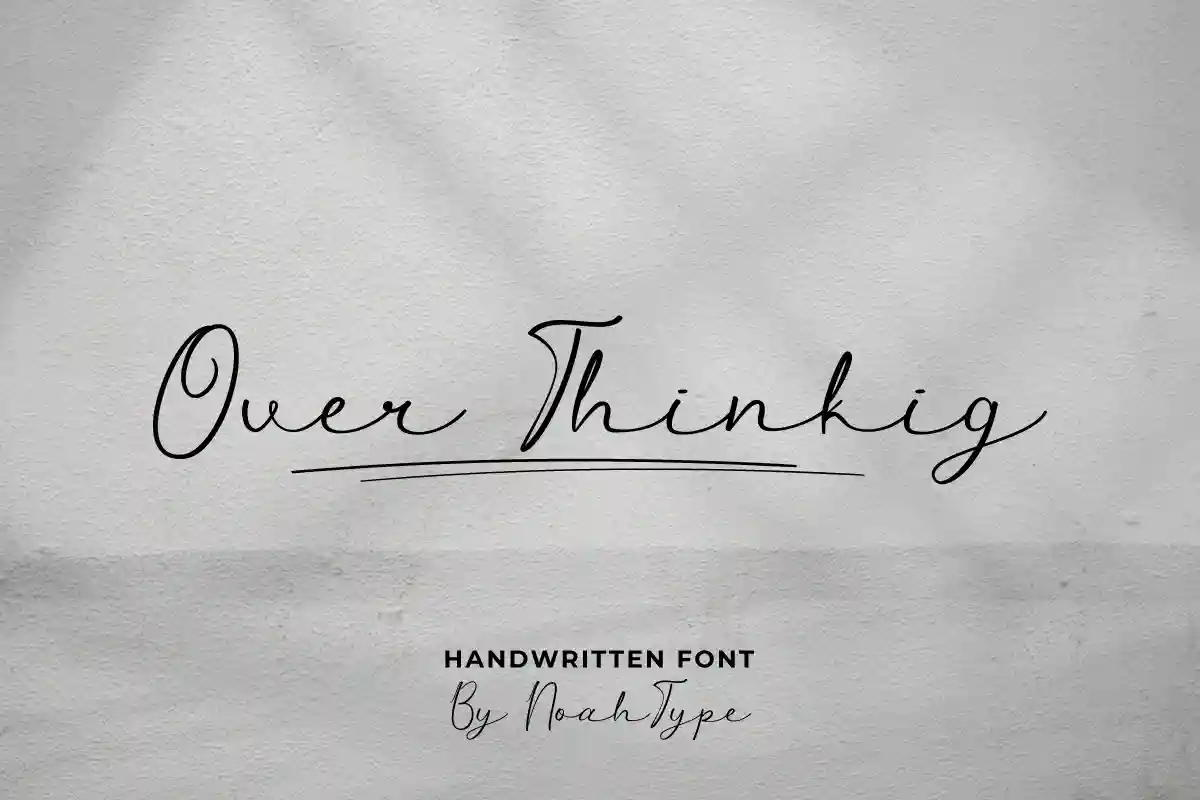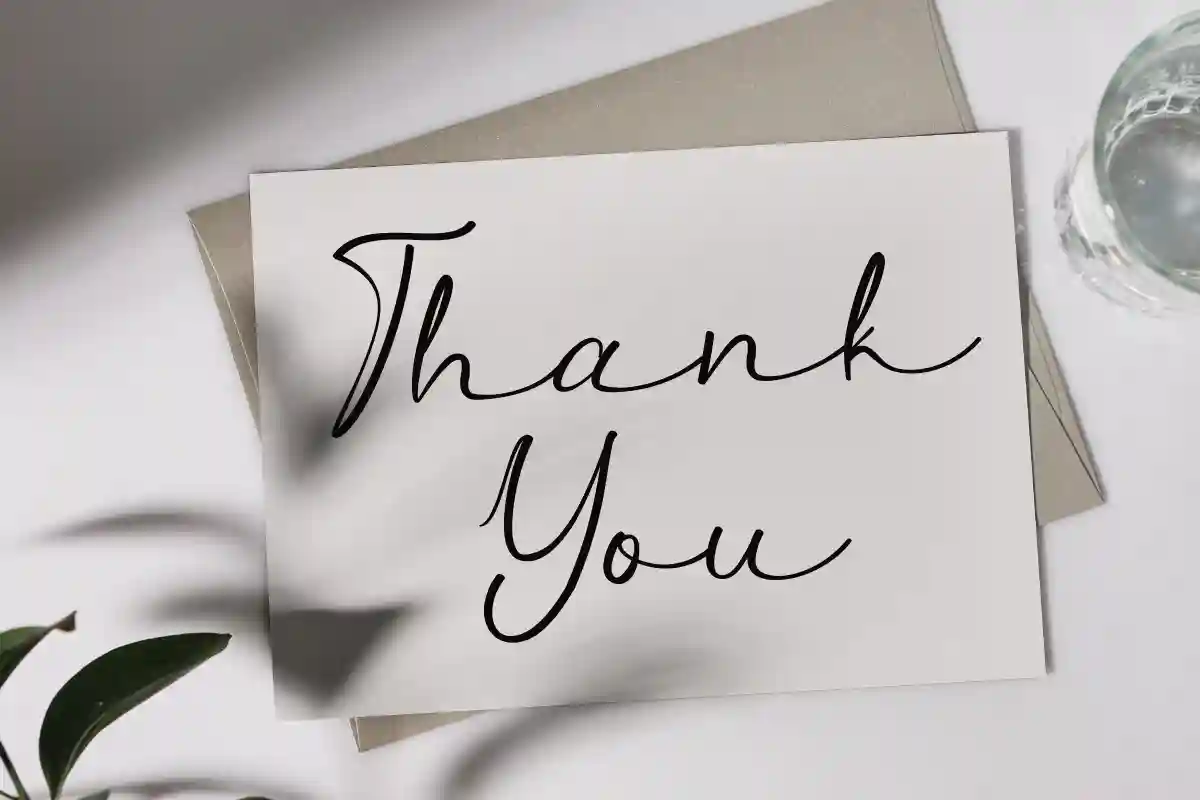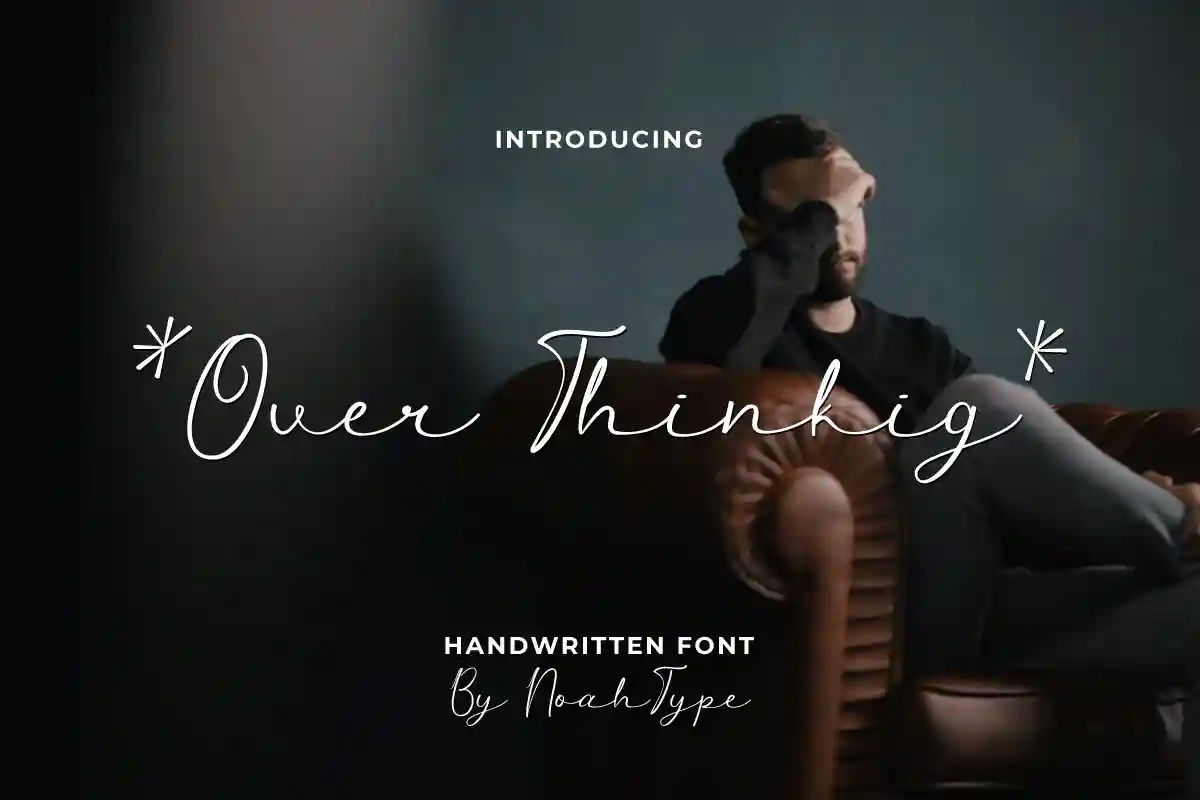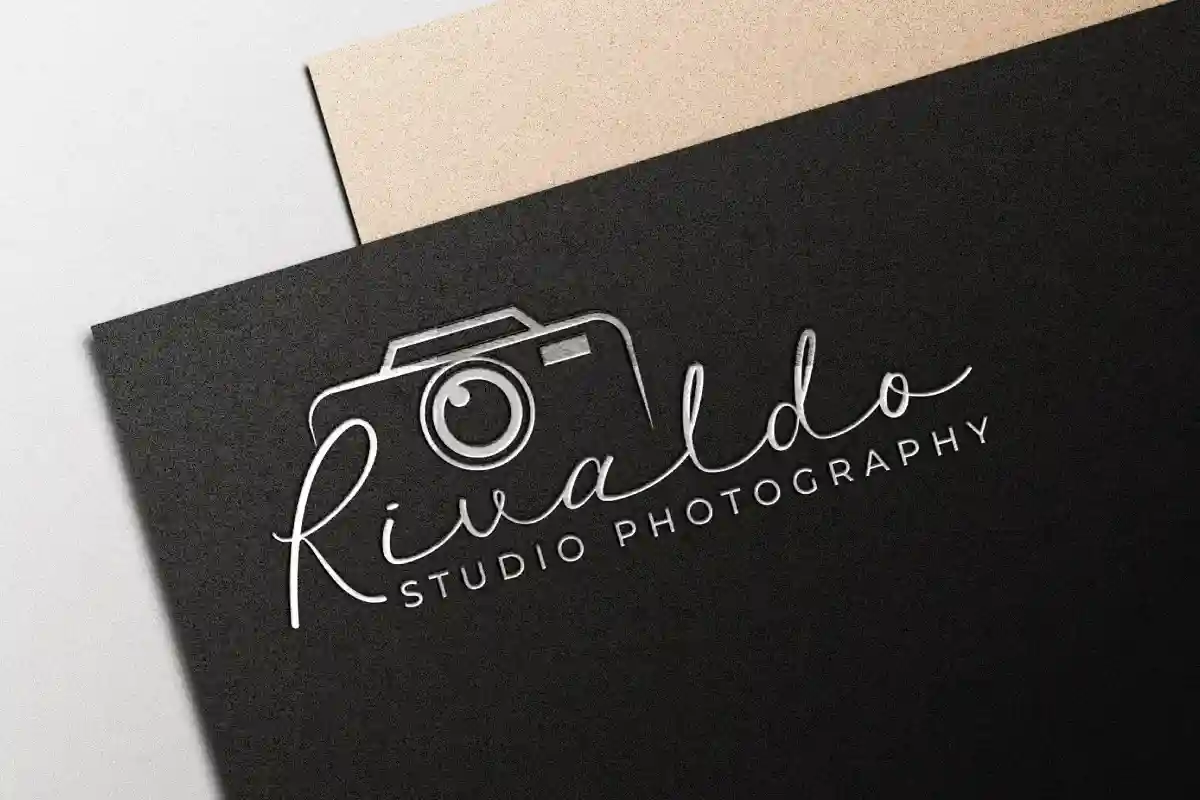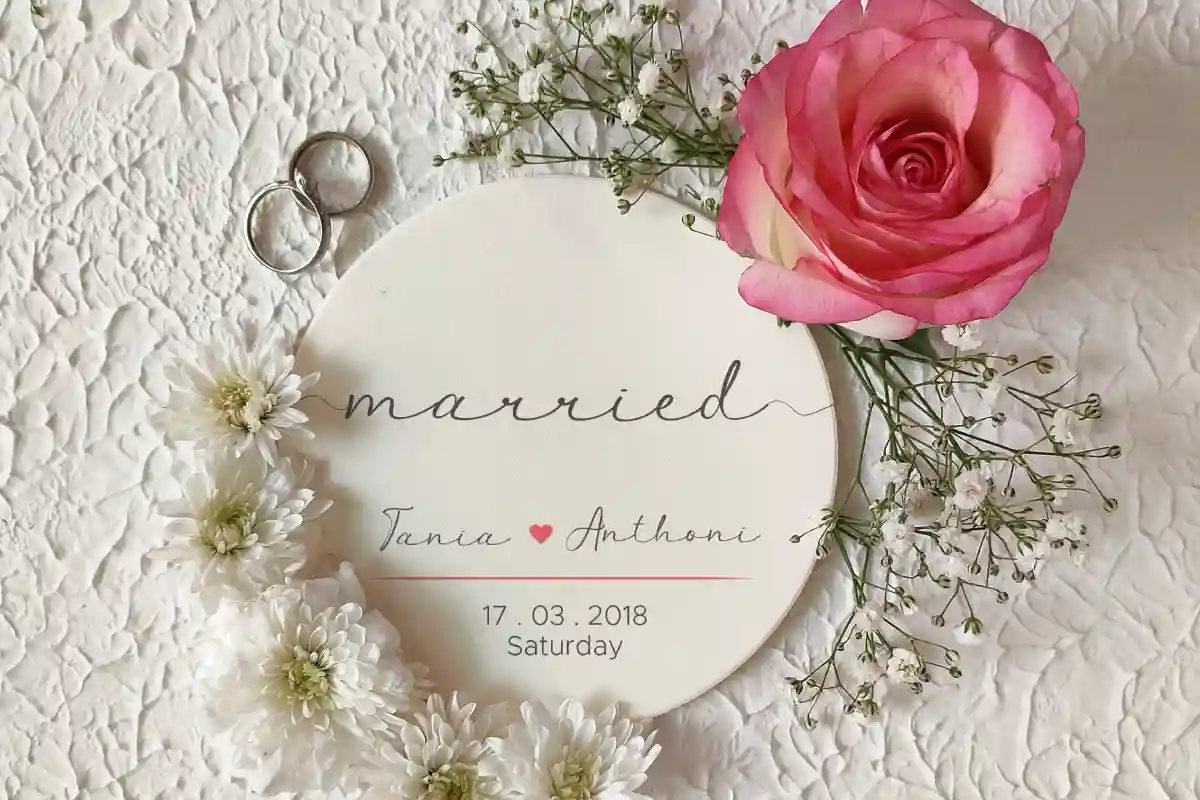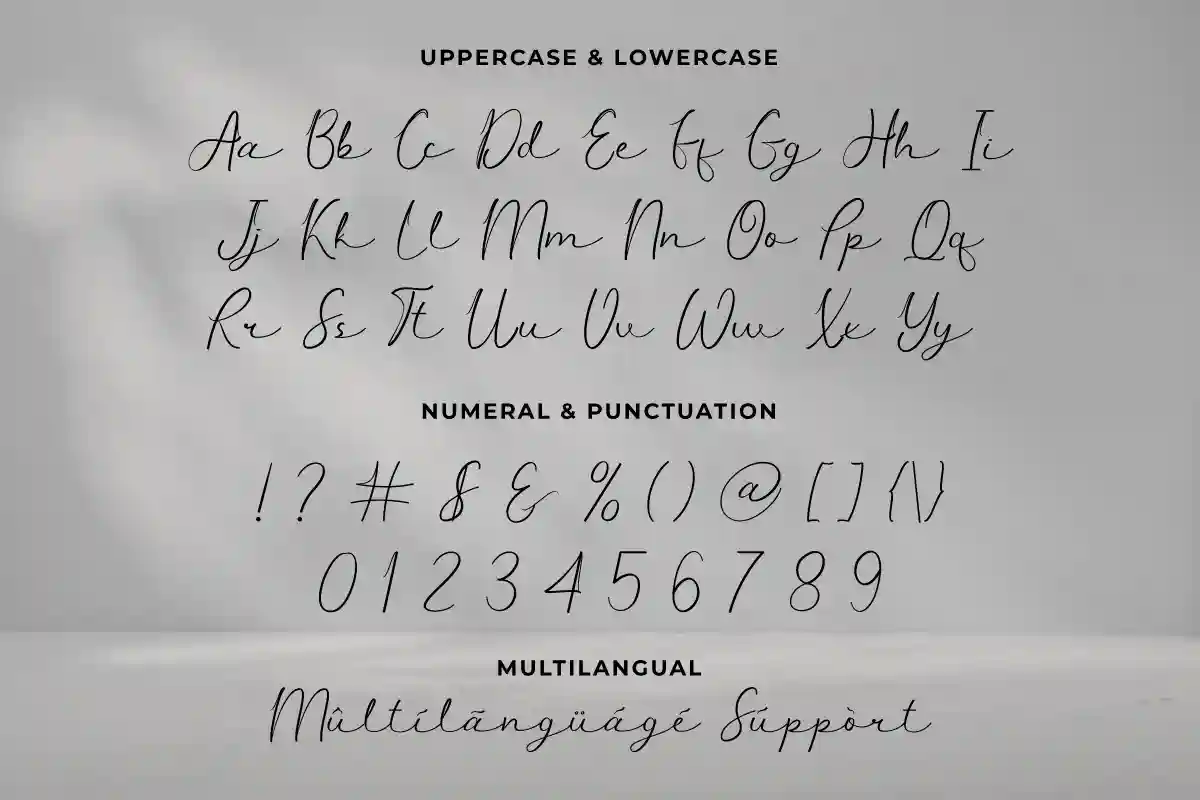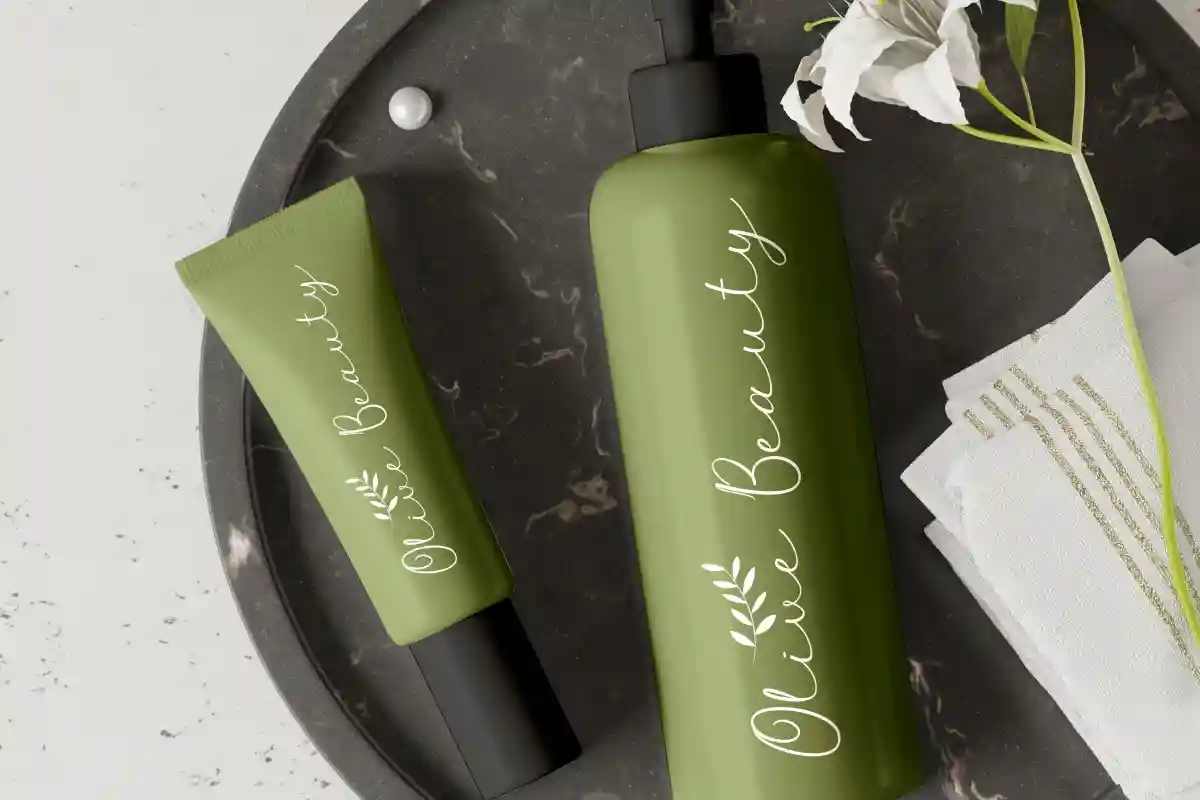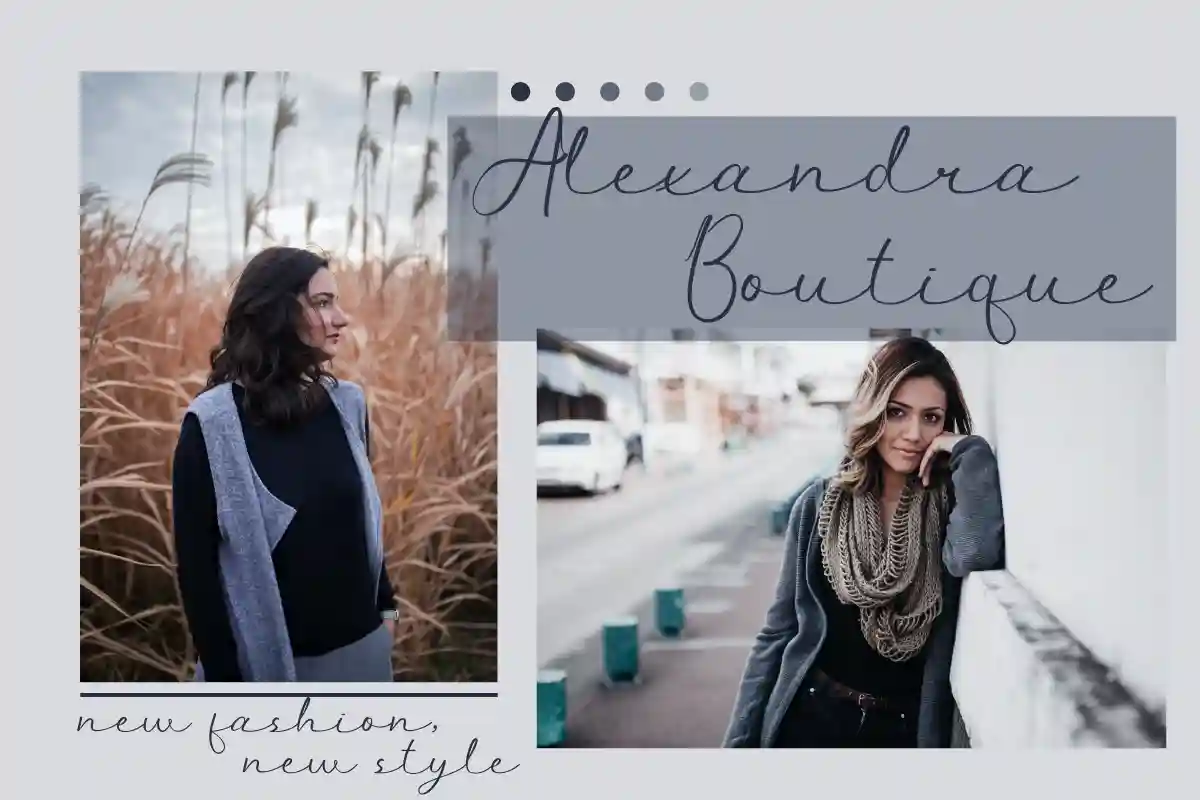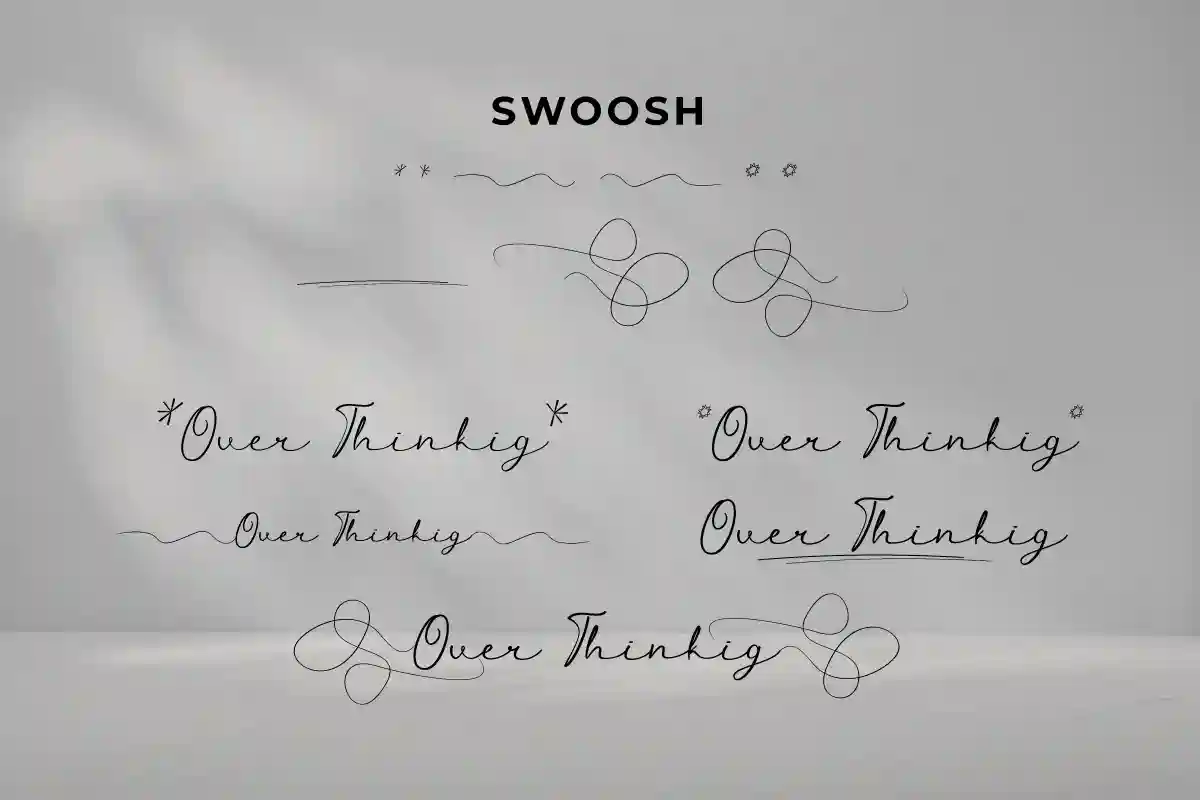
Over Thinking is a simple signature handwriting font with stunning characters. This font is crafted carefully in every its single scratch, created to look as close to a natural handwritten script so that it can create the perfect combination on each glyph. When we make this font, we really want to create a touch that is so free-flowing that it gives a natural impression on its use later. This awesome script is for anyone who are needing of elegance and stylish for their designs.
Over Thinking Handwriting Font includes full set of Uppercase and Lowercase Basic Characters, Numerals and Punctuation. Over Thinking Font will be awesome for professional, photography, wedding, engagement, branding, invitations, florist, hair stylish, makeup artist, event organizer, movie, music, festival, promotions, social media etc
Over Thinking Font will be great for photo logo, professional, branding, logotype, social media post, poster, invitation, watermark, lettering and many more